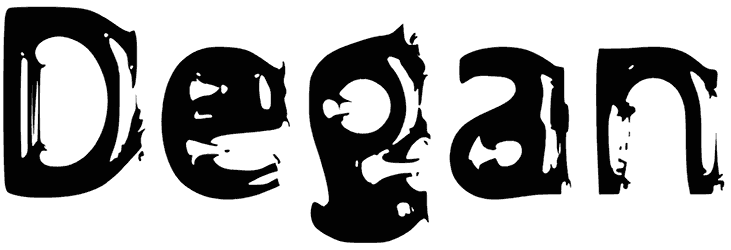
d Degan Font
If you love fonts and always want to try new options in your projects, d Degan is the best value you will find in the design industry. This destroyed font has a complicated mode of brush movements on the paper, which has faded in some parts, and has been able to create a shiny effect for you.
A few details sagging in this fancy font design can make the impression of mystery in your writings, attracting viewers to your posters or advertisements.